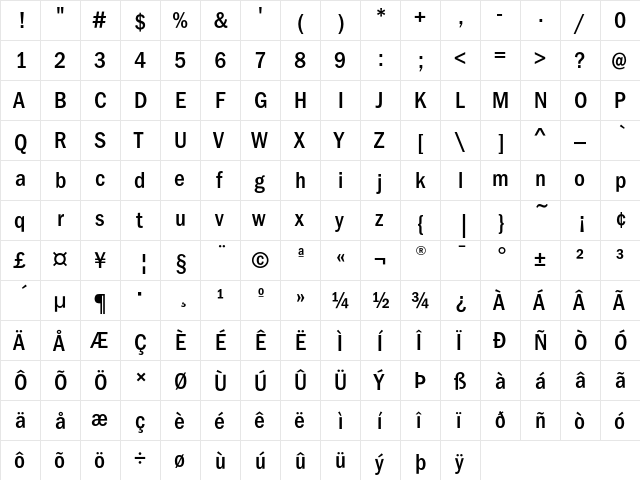
FranklinGothicEF MediumCond
Design Context for FranklinGothicEF Typeface
FranklinGothicEF has the quiet confidence of well-executed sans-serif typography: versatile, unobtrusive, and dependable at any size. Its narrow stance lets it pack a punch even in space-constrained designs.
Font Pairing: Works well alongside a characterful serif or display font that can carry the expressive load while FranklinGothicEF handles the functional copy.
Pro Tip: Try FranklinGothicEF in all-caps with moderate tracking for navigation and label copy — it performs well in systematic UI contexts.